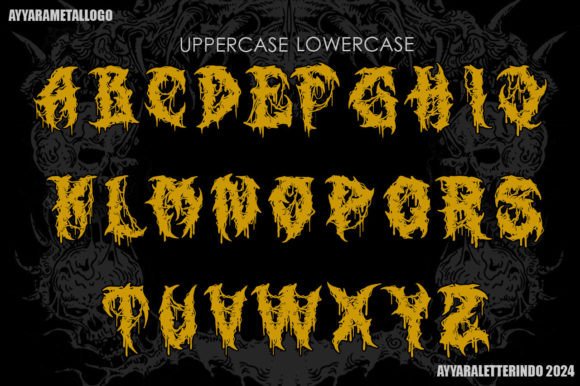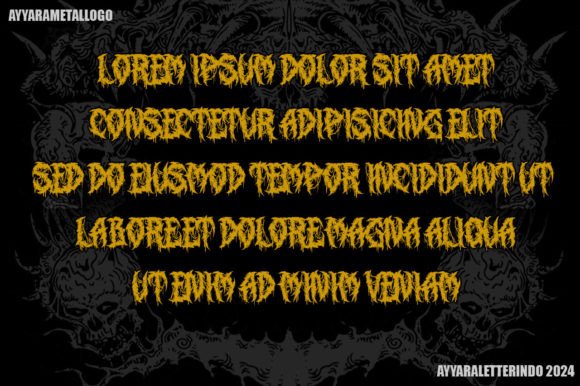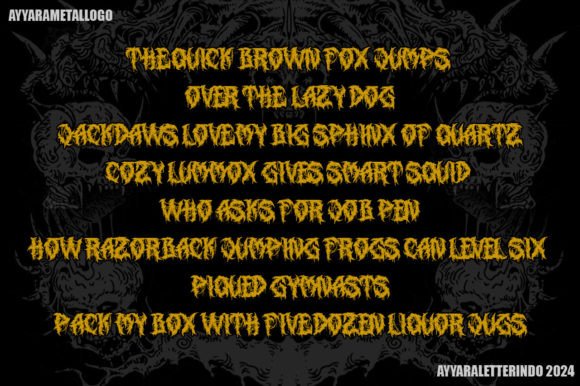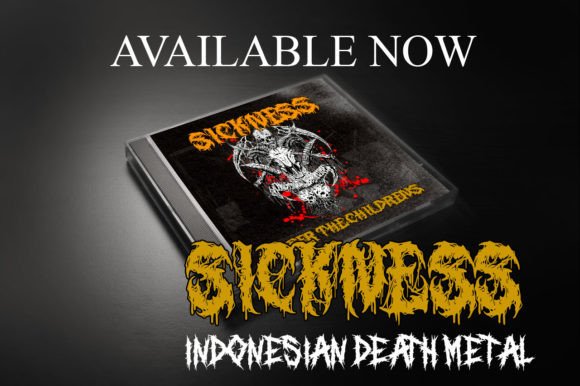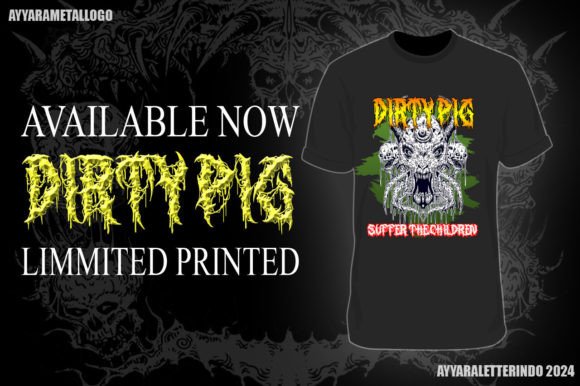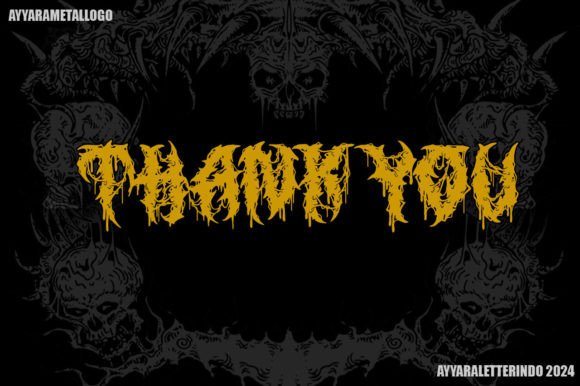
Unleash the Power of Deadly Font: Elevate Your Metal Designs with a Unique Black Letter Font
Are you a metal band looking for a font that embodies the essence of your music? Or perhaps a designer seeking a bold and striking font to make your client’s brand stand out? Look no further than the Deadly Font, a metal font designed to add an edge to your logos, branding, and promotional materials.
What is Deadly Font?
Deadly is a metal font that can be used for logos or branding and your metal band name. With its bold, black letter design, it’s perfect for creating striking band logos, brand logos, posters, flyers, or any media promotional name. This unique font is designed to give your designs a rugged, industrial look that’s sure to grab attention.
Key Features of Deadly Font
- Bold and Striking Design: The Deadly Font features a bold, black letter design that’s perfect for creating striking logos and promotional materials.
- Metal Band Friendly: This font is specifically designed with metal bands in mind, making it perfect for creating band logos and branding materials.
- Easy to Use: With the Deadly Font, you can immediately create your band logo, brand logo, poster, flyer, or any media promotional name with ease.
- Customizable: Combine the Deadly Font with black metal or death metal ornaments to create a unique and personalized design.
How to Use Deadly Font
- Band Logos: Create a striking logo for your metal band that reflects your music and style.
- Brand Logos: Use the Deadly Font to create a bold and striking logo for your client’s brand.
- Posters and Flyers: Create eye-catching posters and flyers for your metal band or client’s brand.
- Social Media Graphics: Use the Deadly Font to create striking social media graphics that grab attention.
Benefits of Using Deadly Font
There are many benefits to using the Deadly Font, including:
- Instant Recognition: The Deadly Font is designed to grab attention and create instant recognition.
- Professional Look: With its bold, black letter design, the Deadly Font gives your designs a professional look that’s sure to impress.
- Easy to Read: Despite its bold design, the Deadly Font is easy to read, making it perfect for use in a variety of designs.
- Unique and Personalized: Combine the Deadly Font with black metal or death metal ornaments to create a unique and personalized design.
Tips for Using Deadly Font
Here are a few tips for using the Deadly Font:
- Experiment with Different Sizes: Experiment with different font sizes to create visual interest and hierarchy in your designs.
- Combine with Images: Combine the Deadly Font with images or graphics to create a striking design.
- Use in Combination with Other Fonts: Use the Deadly Font in combination with other fonts to create a unique and personalized design.
Whether you’re a metal band looking for a font that reflects your music and style, or a designer seeking a bold and striking font to make your client’s brand stand out, the Deadly Font is the perfect choice. With its unique design and ease of use, it’s sure to become a go-to font in your design arsenal.